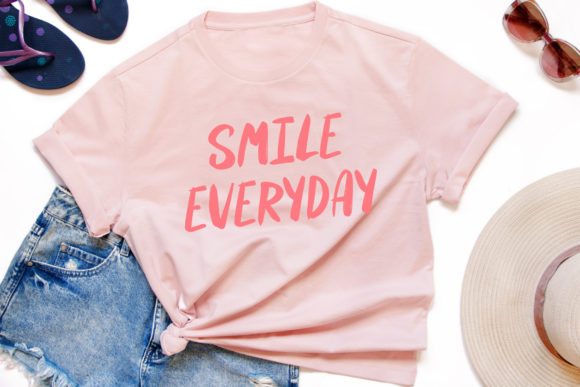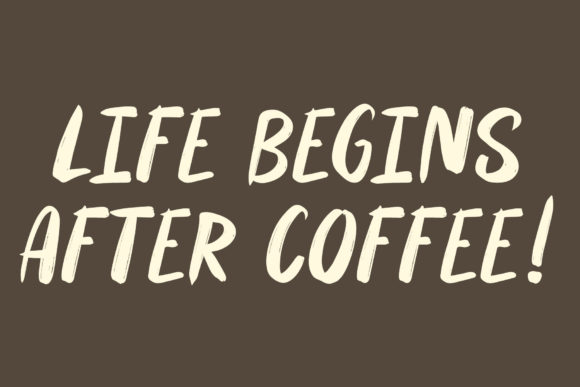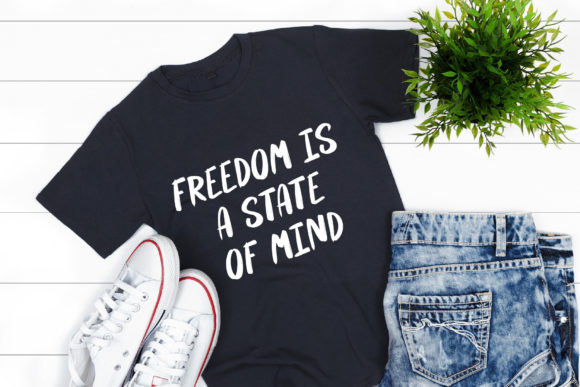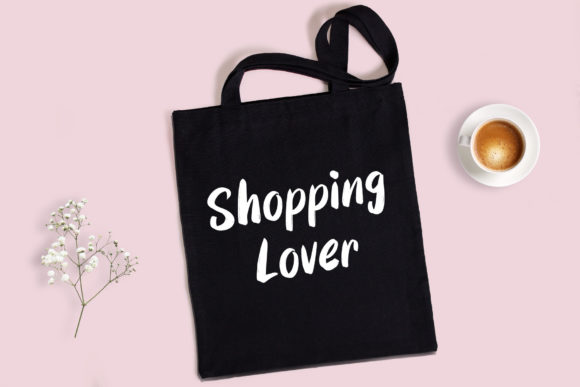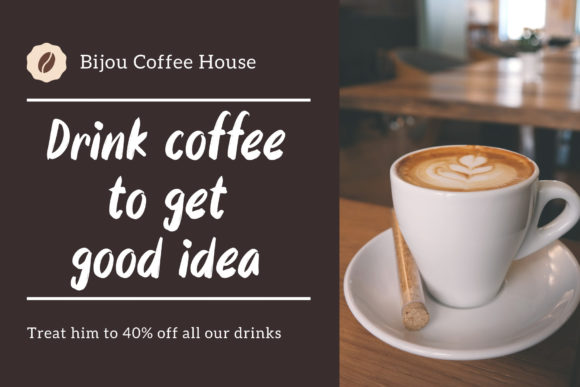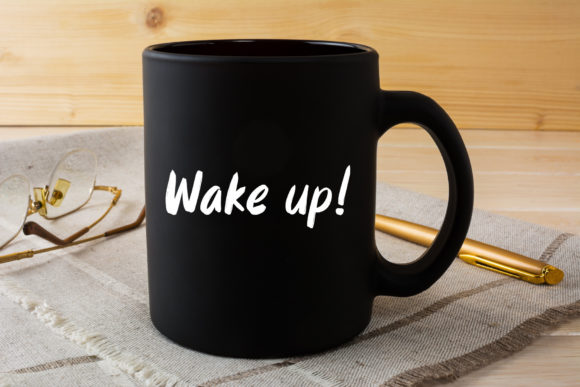
Introducing Americano Font: The Perfect Blend of Friendly and Whimsical
Are you on the hunt for a font that adds a dash of playfulness and quirkiness to your design projects? Look no further than Americano Font! This delightful display font is designed to bring a smile to your face and a touch of personality to your logos, branding, posters, and DIY crafts.
What is Americano Font?
Americano Font is a friendly and whimsical display font that is perfect for designers and crafters looking to add a bit of flair to their projects. With its unique and quirky style, this font is sure to make your designs stand out from the crowd. Whether you’re working on a logo, branding materials, posters, or crafty DIY projects, Americano Font is the perfect fit.
Key Features of Americano Font
• Playful and Whimsical: Americano Font has a fun and carefree vibe that’s perfect for designs that need a bit of personality.
• Display Font: This font is designed to make a statement, making it perfect for headlines, titles, and other display text.
• Quirky and Unique: Americano Font has a one-of-a-kind style that’s sure to set your designs apart from the rest.
• Versatile: This font can be used for a wide range of projects, from logos and branding to posters and DIY crafts.
Americano Font is a dream come true for designers and crafters who want to add a bit of whimsy to their projects. Whether you’re working on a professional design project or a fun DIY craft, this font is sure to inspire your creativity. With Americano Font, you can:
• Create eye-catching logos and branding materials that showcase your personality and style.
• Design posters and flyers that grab attention and make a lasting impression.
• Add a touch of personality to your DIY crafts, such as handmade cards, gift tags, and other paper crafts.
Tips for Using Americano Font
To get the most out of Americano Font, here are a few tips to keep in mind:
• Use it as a display font: Americano Font is designed to make a statement, so use it for headlines, titles, and other display text.
• Pair it with a simple font: To create visual interest, pair Americano Font with a simple font for body text.
• Experiment with colors: Americano Font looks great in a variety of colors, so don’t be afraid to get creative and try out different color combinations.
• Have fun: The most important thing is to have fun and be creative with Americano Font!
Americano Font is a friendly and whimsical display font that’s perfect for designers and crafters looking to add a bit of personality to their projects. With its playful and quirky style, this font is sure to make your designs stand out from the crowd. Whether you’re working on a logo, branding materials, posters, or DIY crafts, Americano Font is the perfect fit. So why wait? Download Americano Font today and start adding a touch of whimsy to your designs!